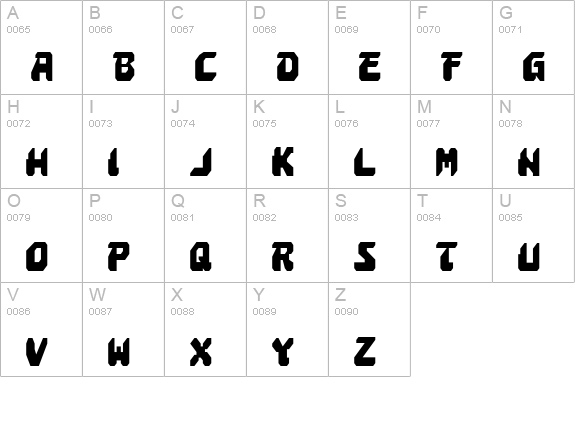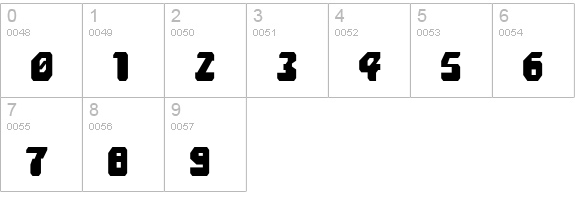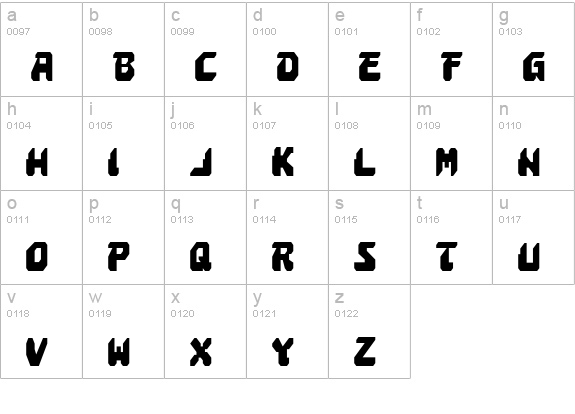
Astropolis Condensed is a distinctive, condensed-width variant in the Astropolis typeface family \xE2\x80\x94 well suited to design and typography projects.
Astropolis Condensed font is a sleek and modern typeface that exudes sophistication and elegance. With its clean lines and condensed letterforms, this font is perfect for adding a touch of class to any design project. Whether you're creating a logo, branding materials, or website headers, Astropolis Condensed is sure to make a bold statement. The best part? Astropolis Condensed font is available for free download at FontsMarket.com. That's right, you can easily access this stunning font without any cost. So why wait? Elevate your designs with Astropolis Condensed and impress your audience with its professional and stylish look. Download it now and start creating beautiful typography that stands out from the rest.